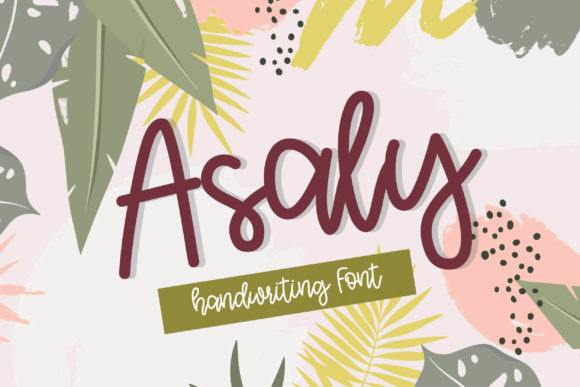
Asaly Font
Asaly is a magical and quirky handwritten font. This enchanting font will turn any creative idea into a true standout. Get inspired by its childlike playfulness, and use it to brighten up any kids and school project!